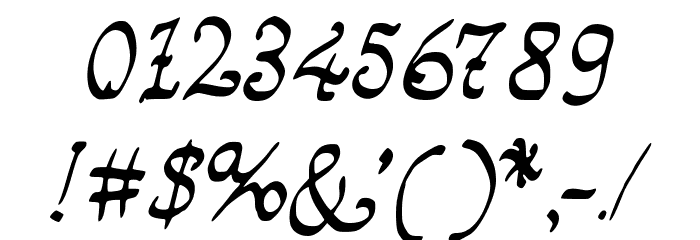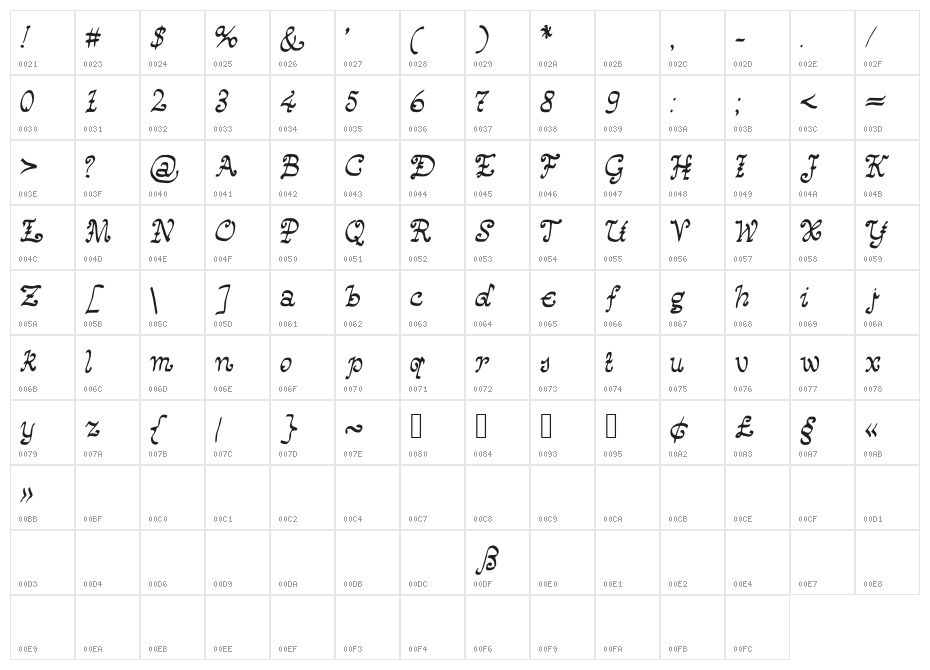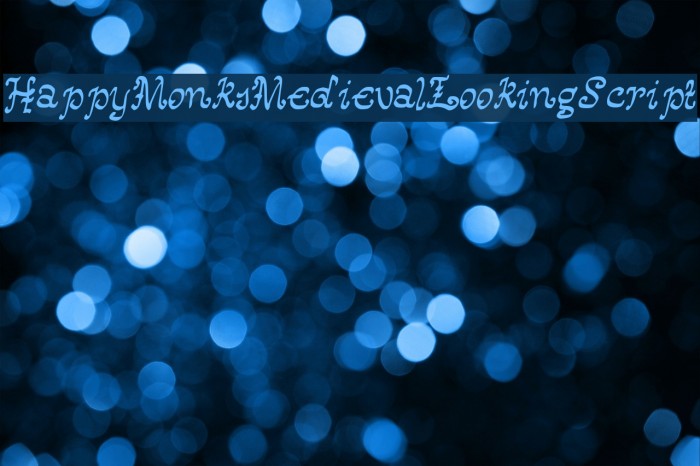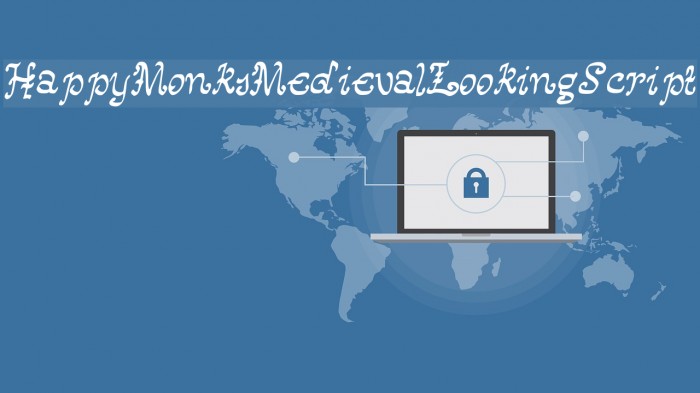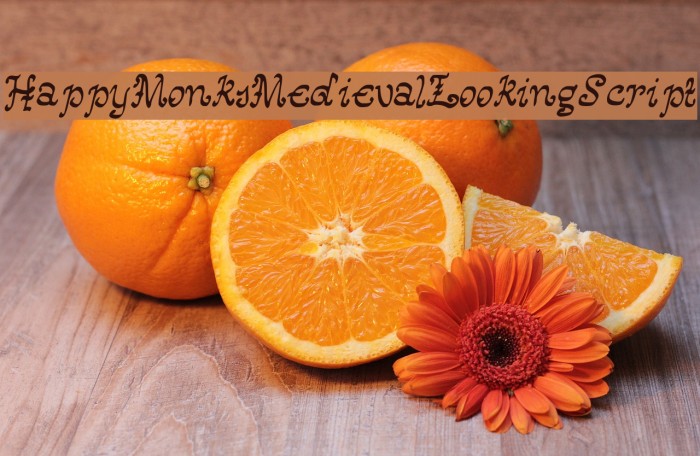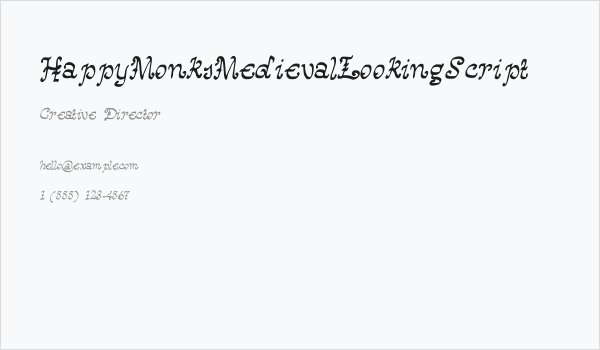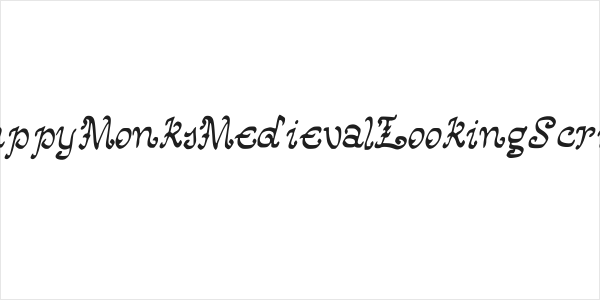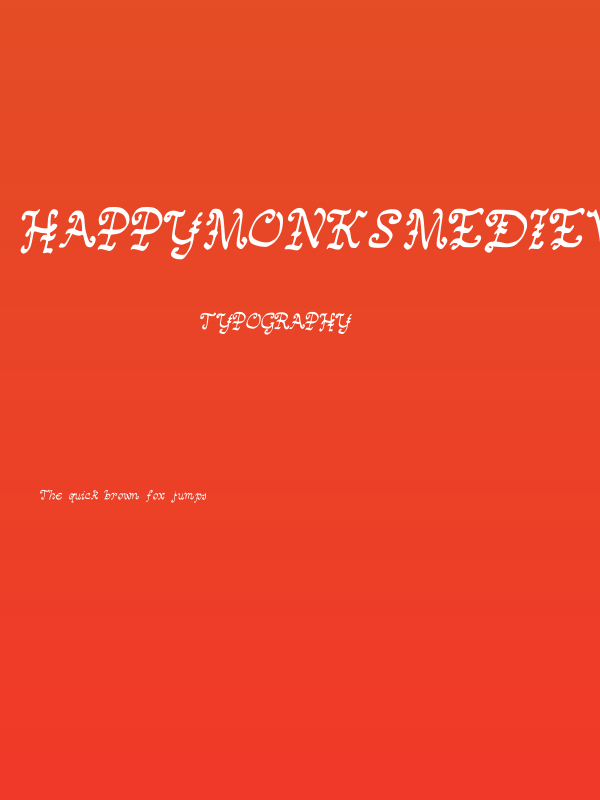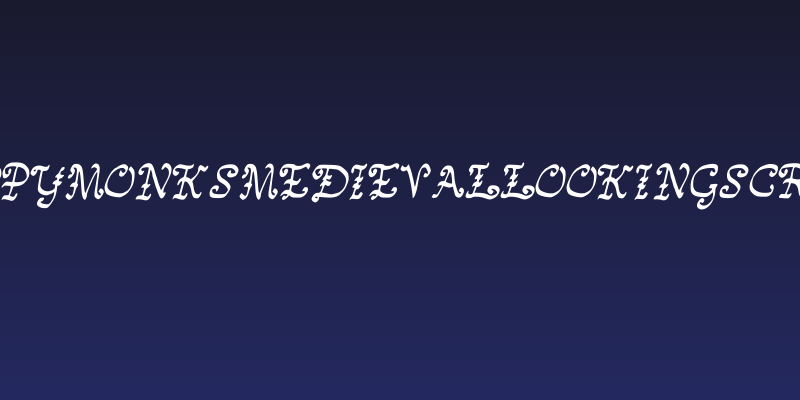
HappyMonksMedievalLookingScript Font
HappyMonksMedievalLookingScript Description
This font features a medieval-inspired script style with elegant, flowing lines and a distinctively ornate appearance. The characters are designed with a calligraphic flair, incorporating subtle curves and decorative elements that evoke a sense of historical charm. The uppercase letters are bold and prominent, while the lowercase letters maintain a consistent style with slightly more intricate details. Numbers and special characters are crafted to match the overall aesthetic, ensuring a cohesive look across all text elements. The font's unique style makes it suitable for projects that require a touch of vintage elegance and sophistication.
| Use Case | Headlines, Logos, Decorative text |
| Proposed Projects | Ideal for wedding invitations, historical documents, fantasy-themed designs, and branding that requires a vintage touch. |